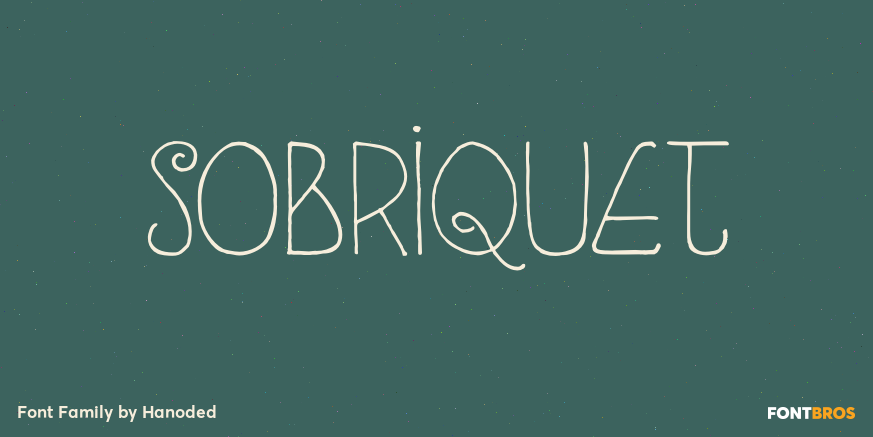
HomeFont BrosArt Deco (1910-1935)Sobriquet Art Deco (1910-1935)Handwritten Sobriquet FacebookXPinterestWhatsApp 1 of 1 About Sobriquet means ?nickname?. The font is a narrow, handmade typeface, in an art-deco-ish style. It comes with a bunch of ligatures, distinct upper and lower case letters and extensive language support.  DOWNLOAD NOW People also explored Abigaila Font Best Fonts for T-Shirt Design – Top 2025 Picks Juxpen Font Gerome Font Christmas Font Canvas Red Bella Canvas 3001 Cool Mockup White Rose Font Love Font Names Font 264 0 TagsSobriquet Font Previous articleVulgatNext articleRadiogram LEAVE A REPLY Cancel reply Comment: Please enter your comment! Name:* Please enter your name here Email:* You have entered an incorrect email address! Please enter your email address here Website: Save my name, email, and website in this browser for the next time I comment. Personal Use Free Rakesly Personal Use Free Read more about this font Maxwell Personal Use Free Read more about this font Xplor Personal Use Free Read more about this font Imelda Personal Use Free Read more about this font BLOG Free Fonts Risk: Why Free Fonts Can Be Dangerous for Designers Free Fonts Risk: Why Free Fonts Can Be Dangerous for Designers Using free fonts is a common practice in web and graphic design. However, the... How to Install and Use Fonts on Windows, macOS, and Web Projects The 10 Best Handwriting Fonts to Add Personality to Your Designs Best Fonts for T-Shirt Design – Top 2025 Picks